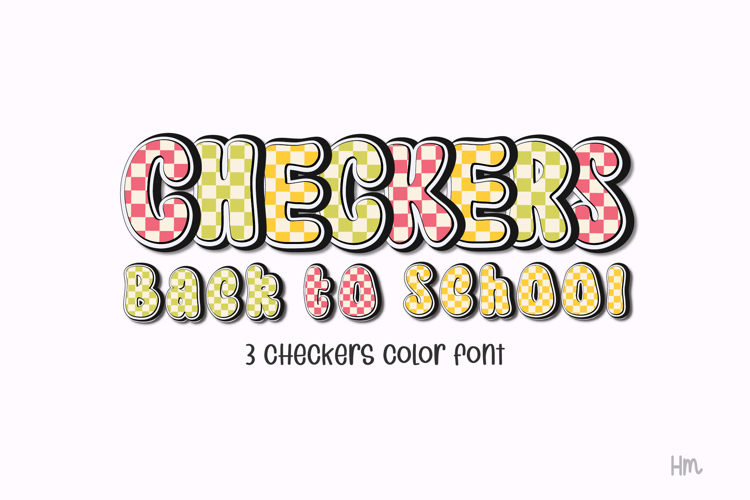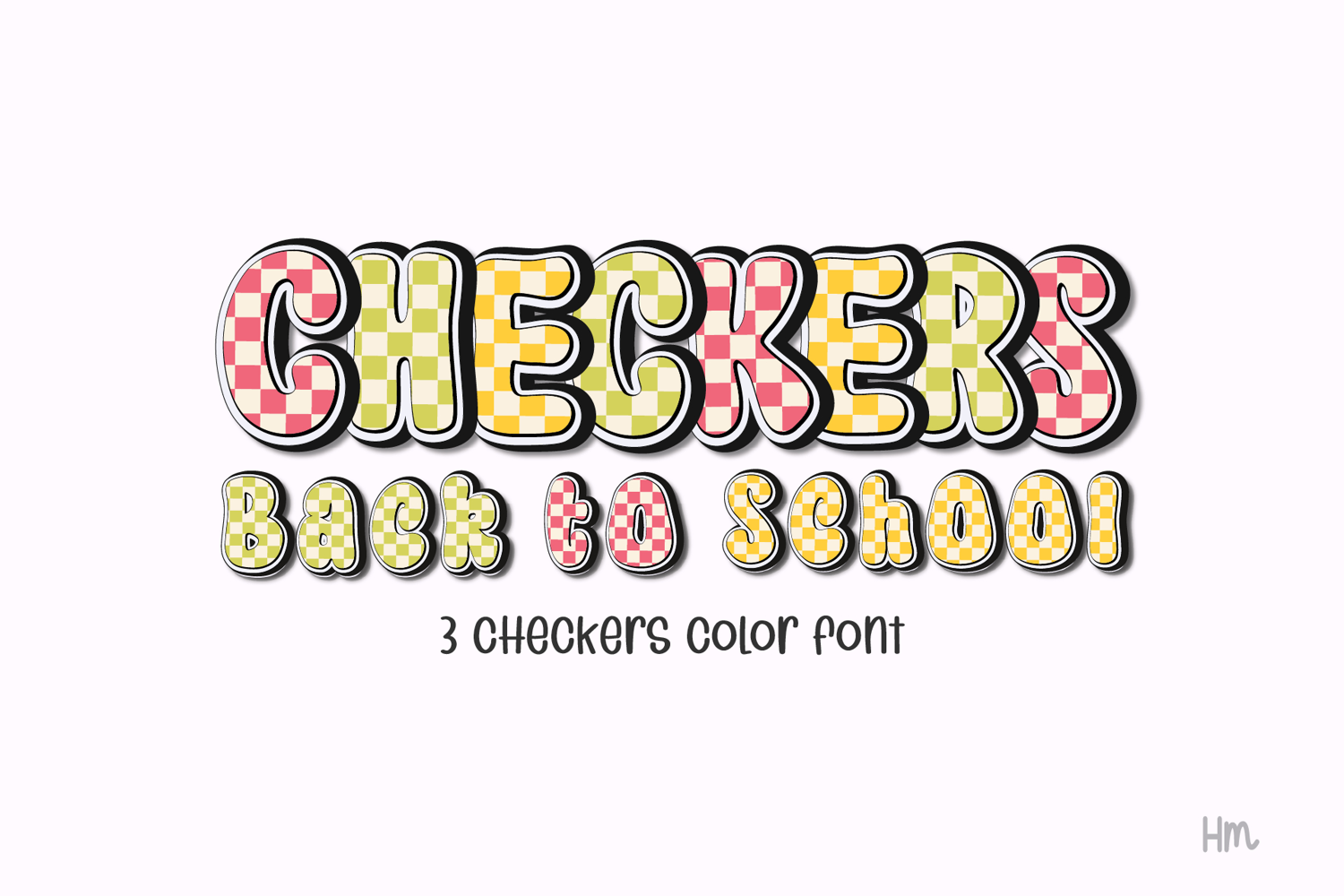
Checkers Back to School Color Font | Fun Display Alphabet Bring fun and creativity to your back-to-school projects with the Checkers Back to School Color Font. This playful checkered display typeface comes in three vibrant color variations – red, green, and yellow – perfect for making your designs pop.